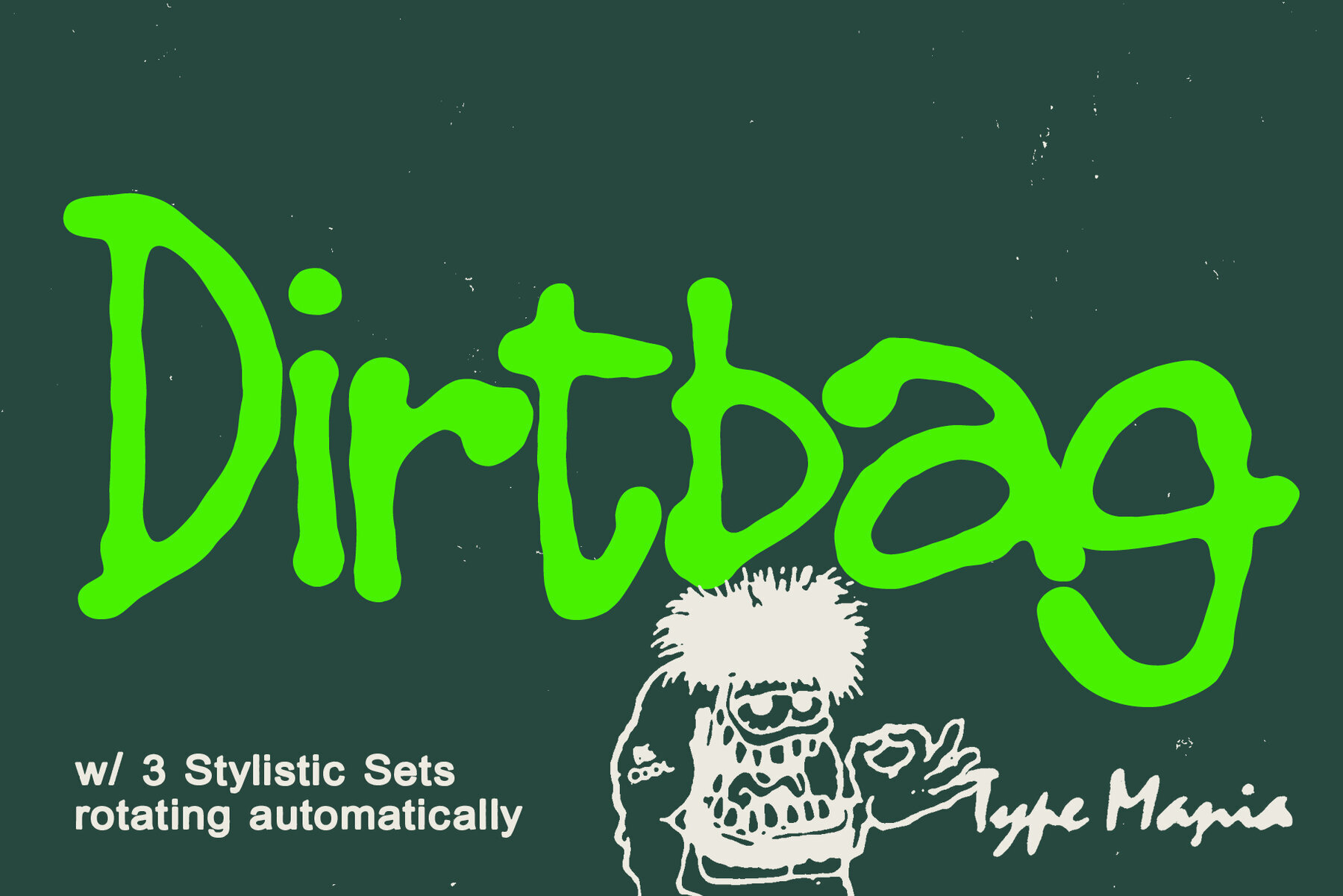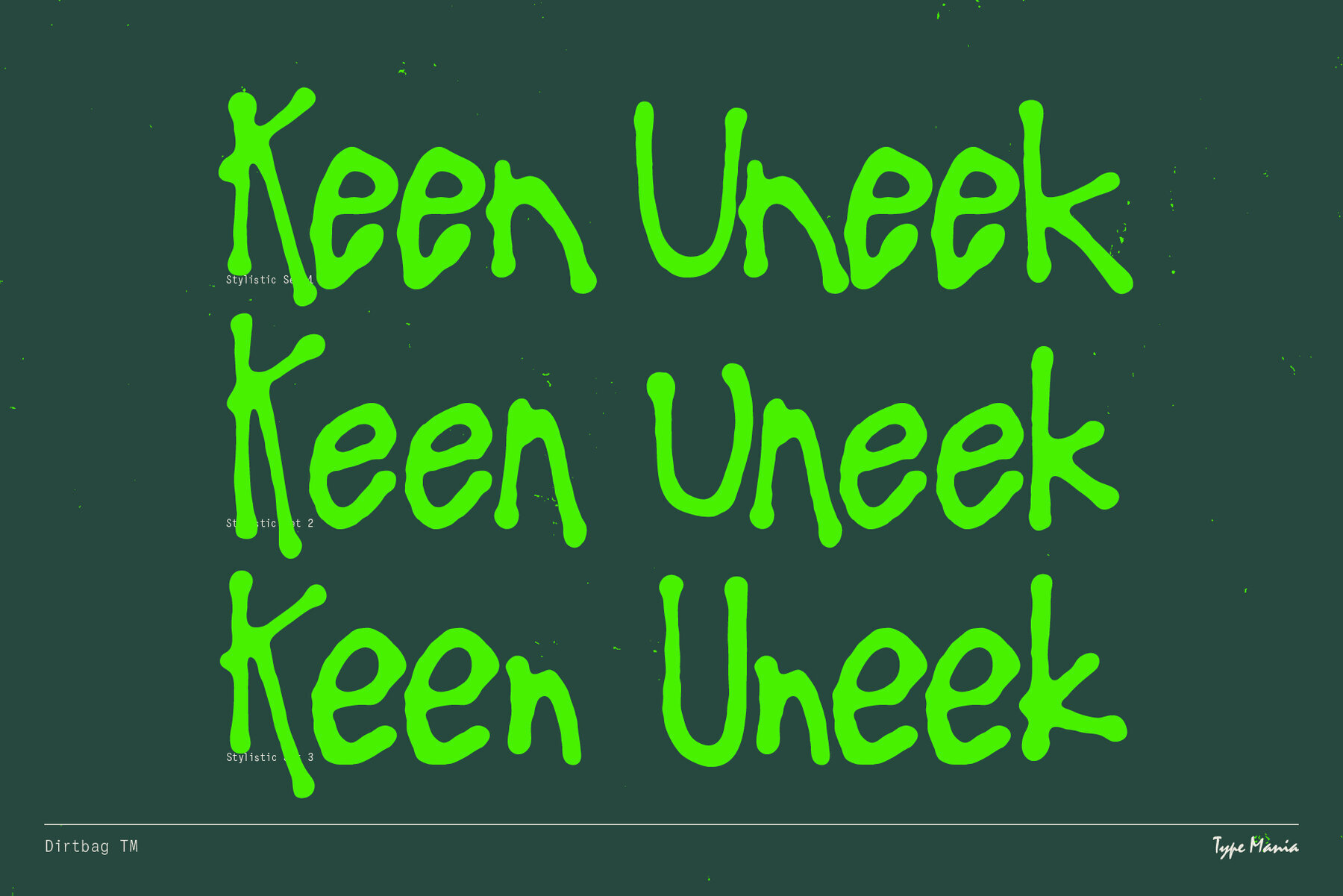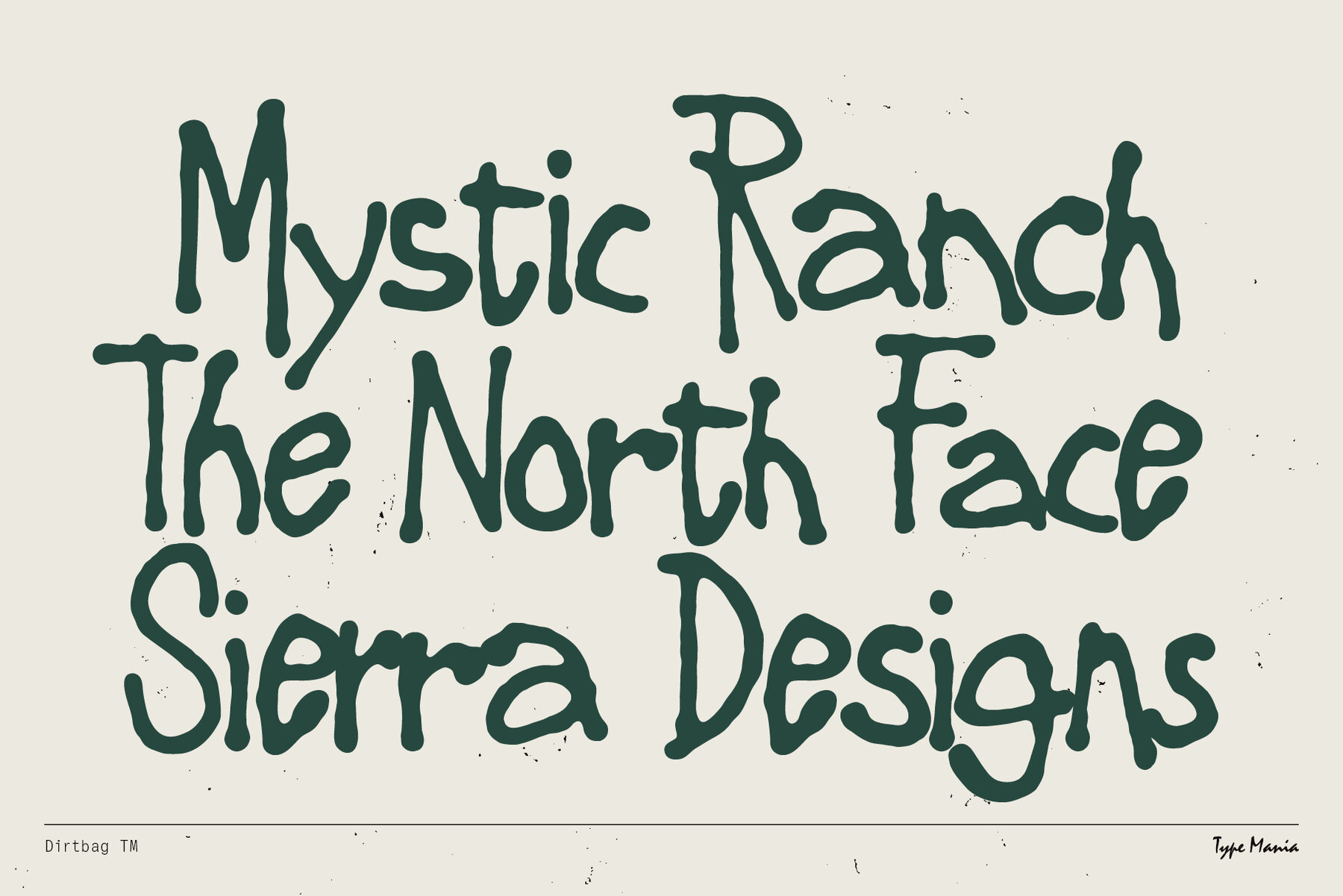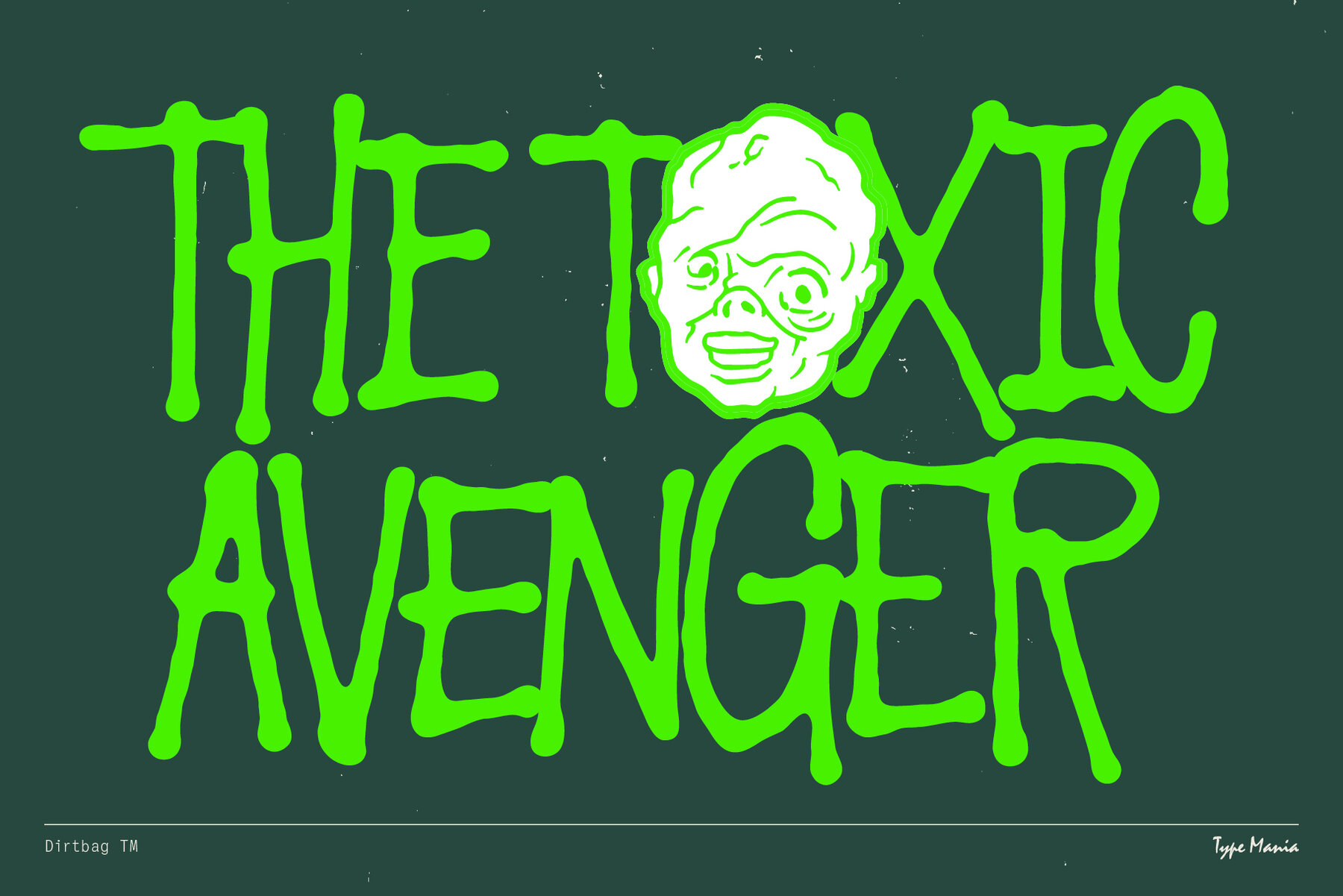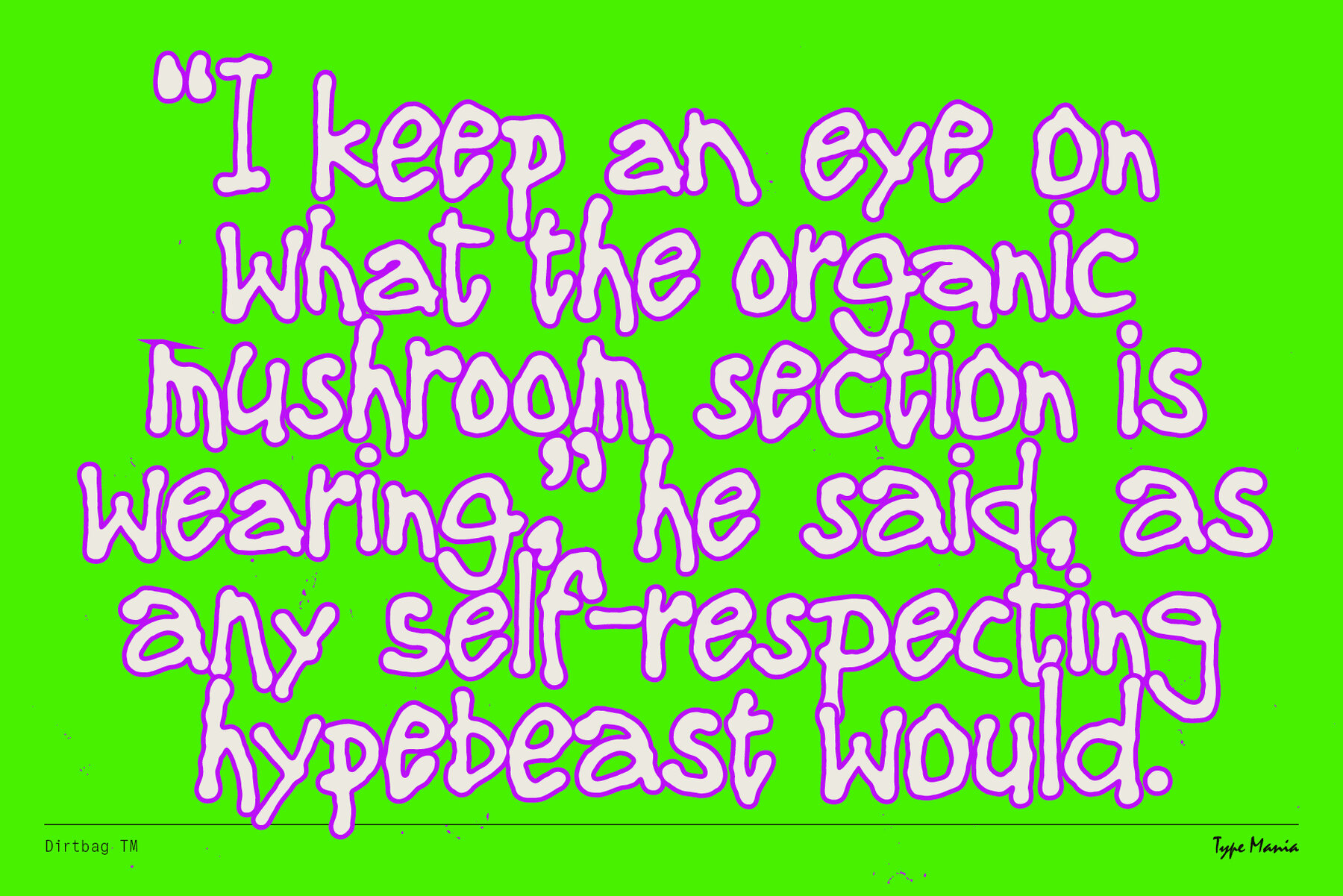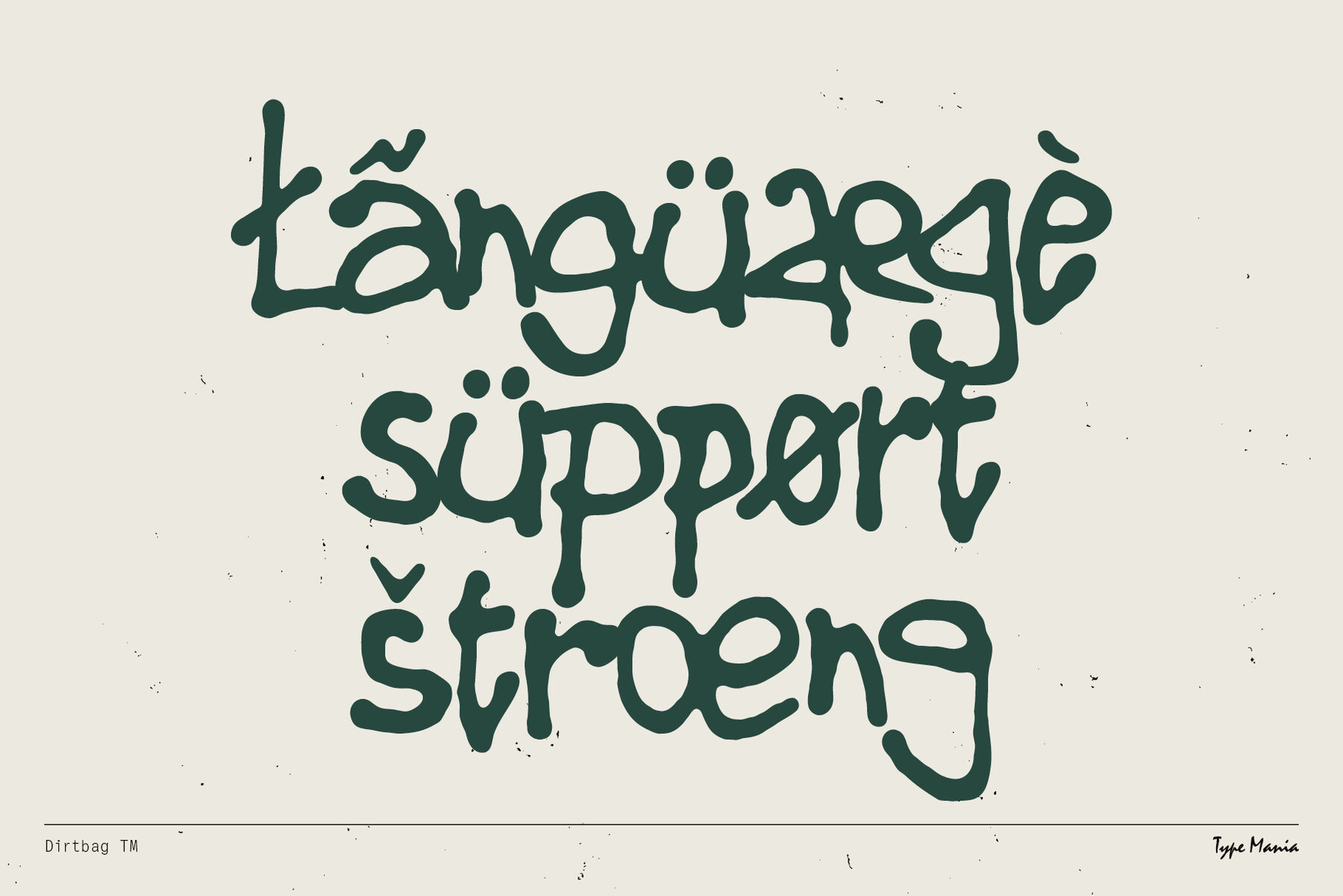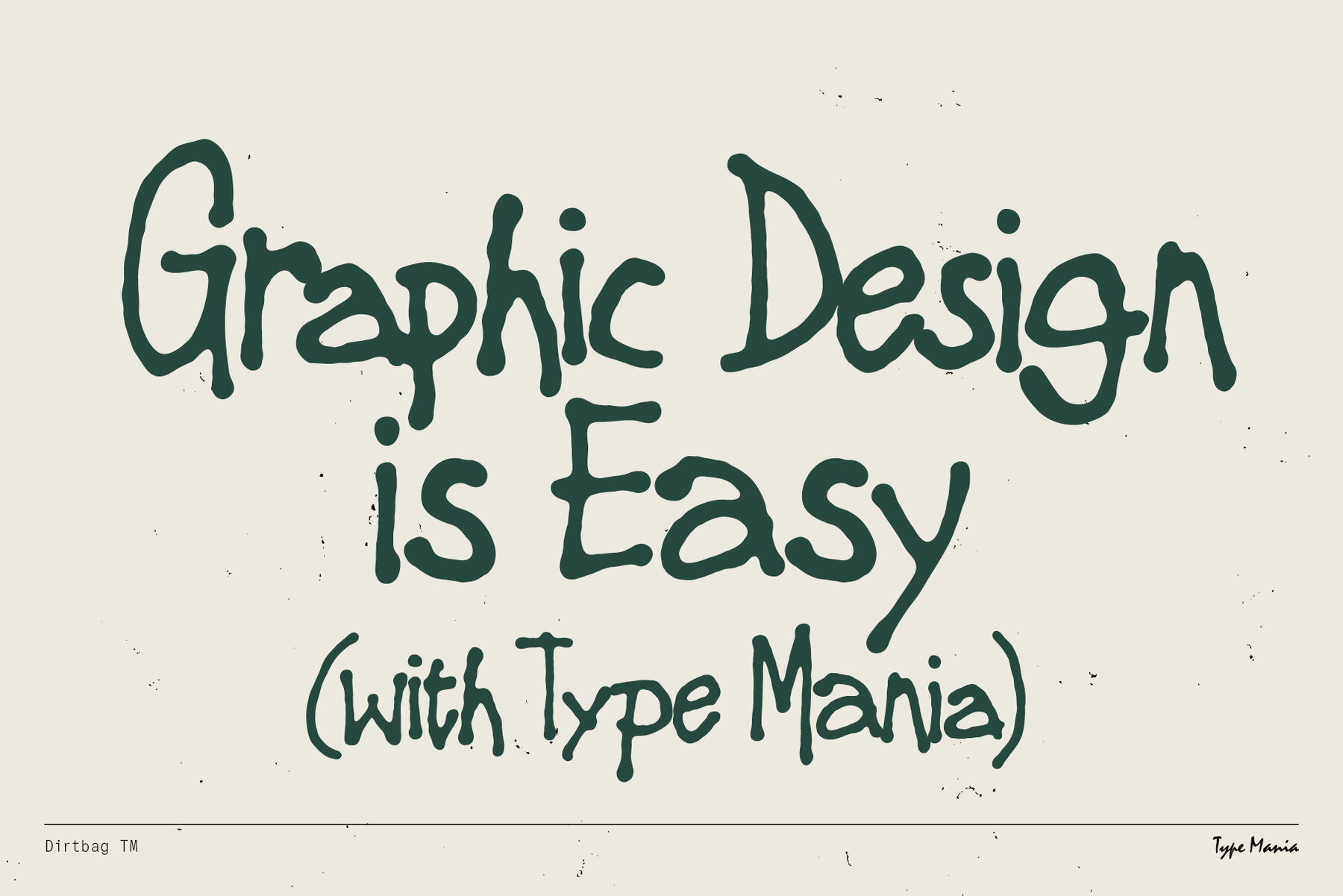
Dirtbag TM Font
Dirtbag TM Regular
The Dirtbag typeface exudes a handmade charm, embracing imperfections with intentionality. This display font is sketched by hand and brings an organic feel to both print and digital mediums. Its contextual alternates effortlessly rotate between three stylistic sets, forming a distinctive 1-2-3 pattern that enriches your design with a unique texture.Organic Texture with Dirtbag Display Typeface